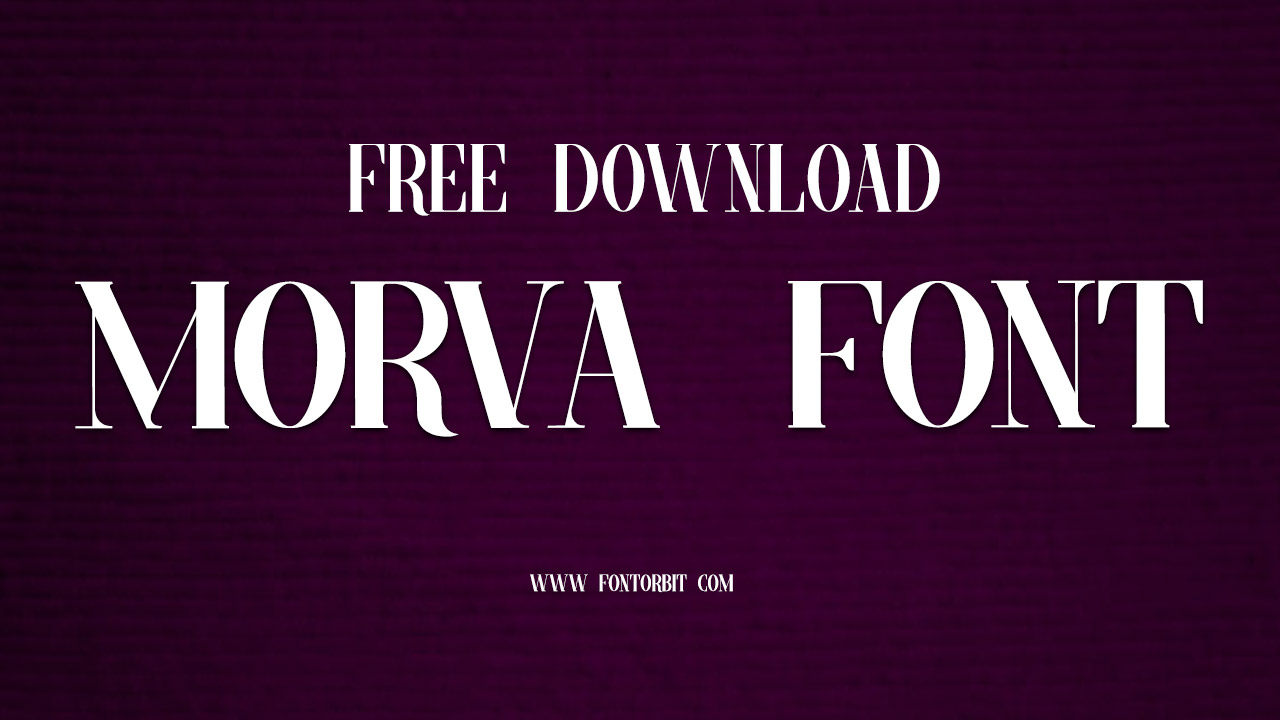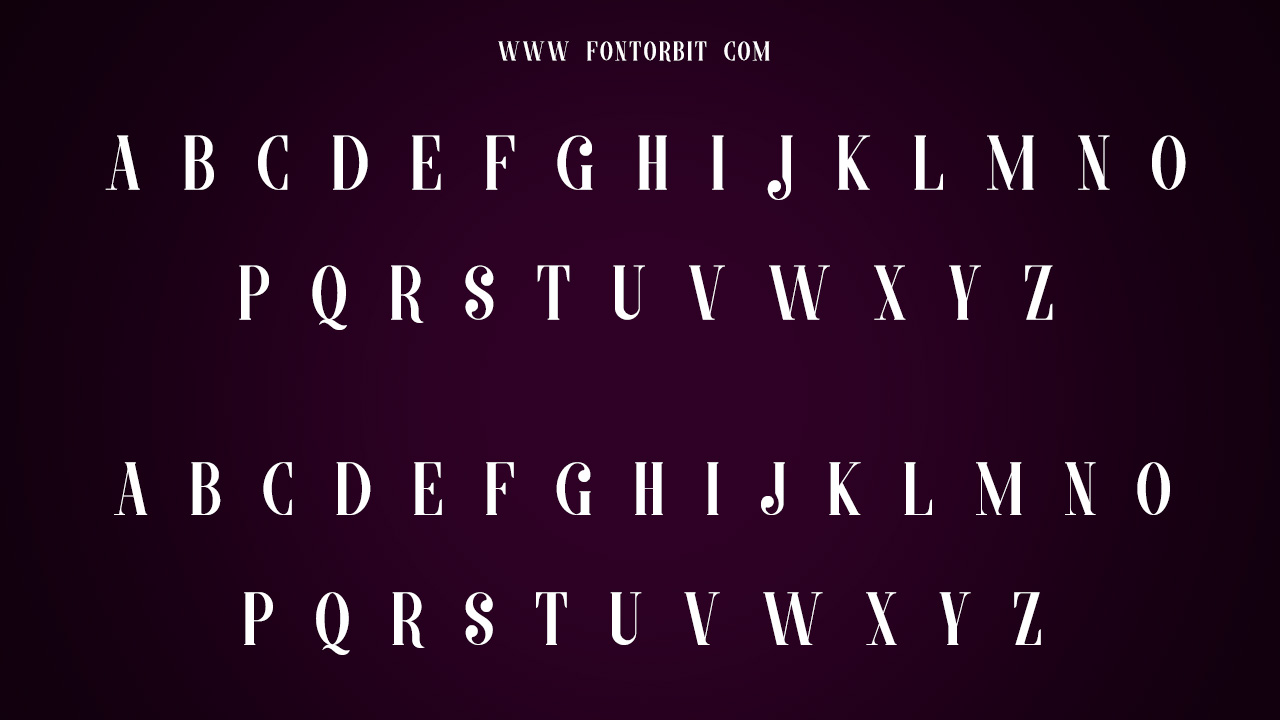
The Morva font, designed by Alit Design, was first released in 2016. This decorative serif font, known for its elegant, luxurious feel, is perfect for high-end branding and editorial projects. The Morva font belongs to the serif family and is available for personal and commercial use.
Morva Font Family Includes
Morva is a versatile font family with a refined, graceful look that is suitable for various design projects. It includes several styles that provide flexibility in design, enhancing both digital and print projects.
a. Morva Regular
b. Morva Italic
Notable Uses Of Morva Font
Morva is particularly known for its use in luxury branding, fashion magazines, packaging, and wedding invitations. It has been a go-to font for designers seeking a blend of modernity and classic elegance. Because of its distinctive serifs and stylish flair, designers have used it in editorial layouts and product branding
Morva is best used in the following:
- Luxury branding and packaging
- Editorial headlines and magazine covers
- Wedding invitations and event designs
- Fashion-related advertising
- Logos and business cards for premium brands
In summary, the Morva serif font is a highly adaptable and elegant serif font perfect for adding a touch of sophistication to their projects. Its refined look and modern versatility make it an excellent choice for high-end and luxury designs.
2.What Type Of Font Is Morva?
Morva is a decorative serif font.
5.Is Morva Suitable For Branding?
Yes, especially for luxury and high-end branding.
6.What Is Morva’s Best Usage?
Morva is best used for editorial design, packaging, and invitations.